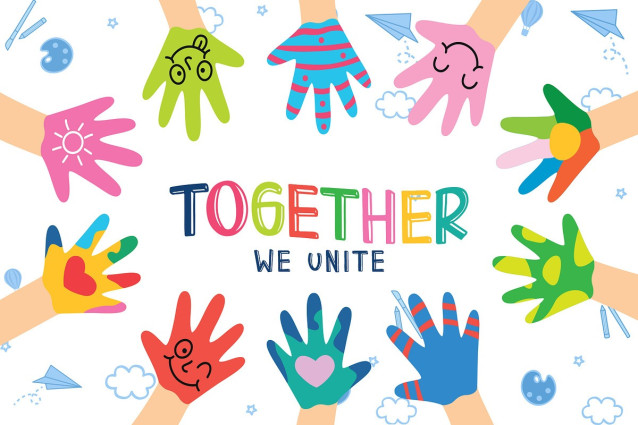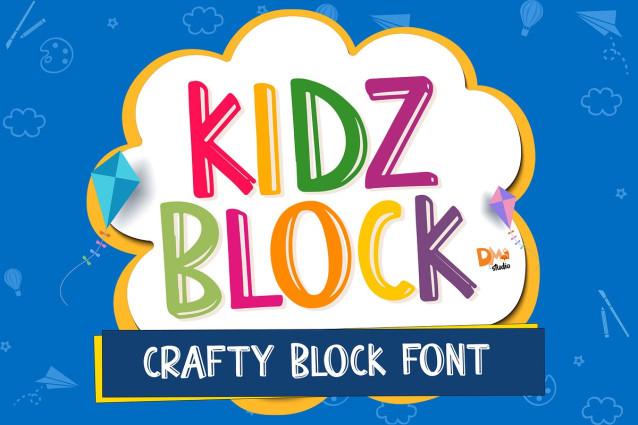
Kidz Block Font
Kidz Block Font is a playful and whimsical typeface designed to bring a sense of fun and creativity to your projects. With its blocky and child-friendly letterforms, this font is perfect for children’s books, educational materials, crafting, and any design where a lighthearted and approachable typography is desired.